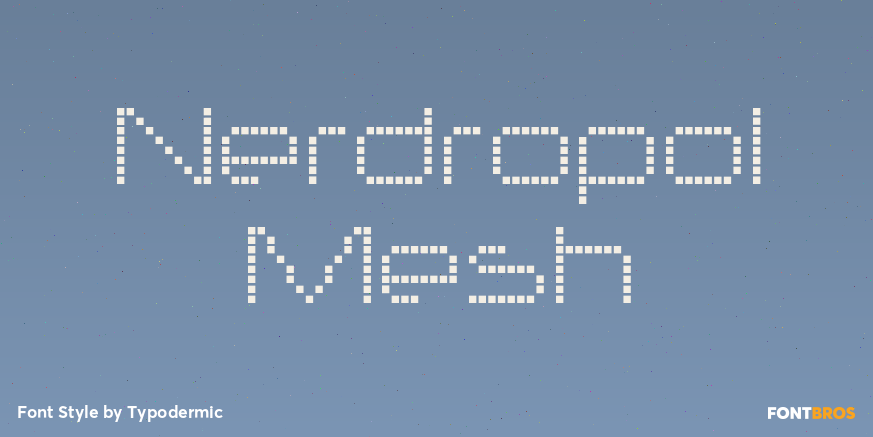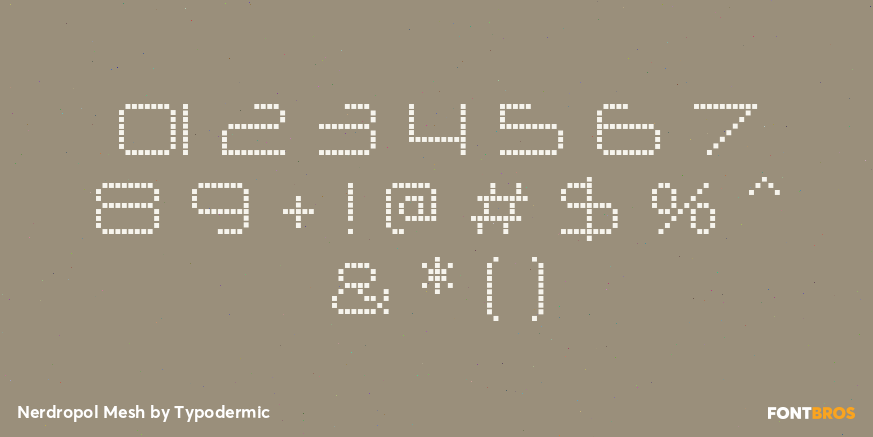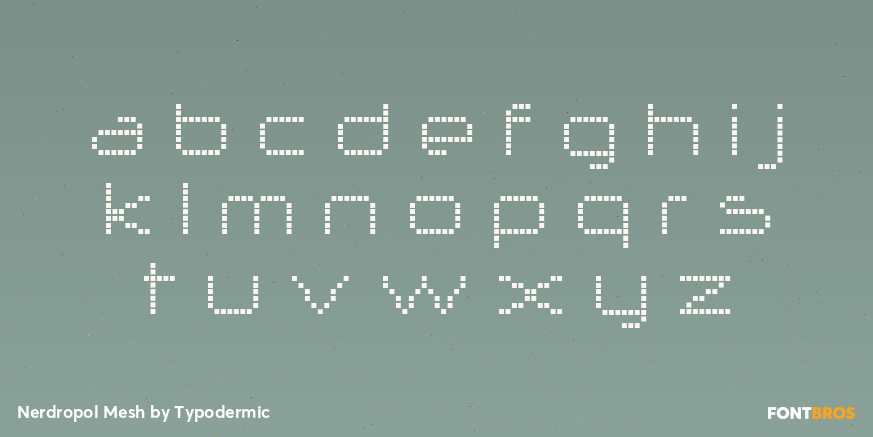
Nerdropol Mesh
Buy NowNerdropol Mesh uses smaller square modules and more open intervals to turn each stroke into a fine, perforated strand. The repeated cells preserve the family’s geometric outline but create a lighter, more granular surface than Grid or Lattice, closer to a sampled image or an engineered screen seen at close range.
Use Nerdropol Mesh for image-sensor branding, optical-inspection displays, process visualizations, projection graphics, and restrained motion titles. It benefits from generous scale, simple backgrounds, and strong contrast so the small squares do not merge or disappear. Pair it with Regular for technical details, or introduce Circle or Screen for a second texture in larger campaign systems.